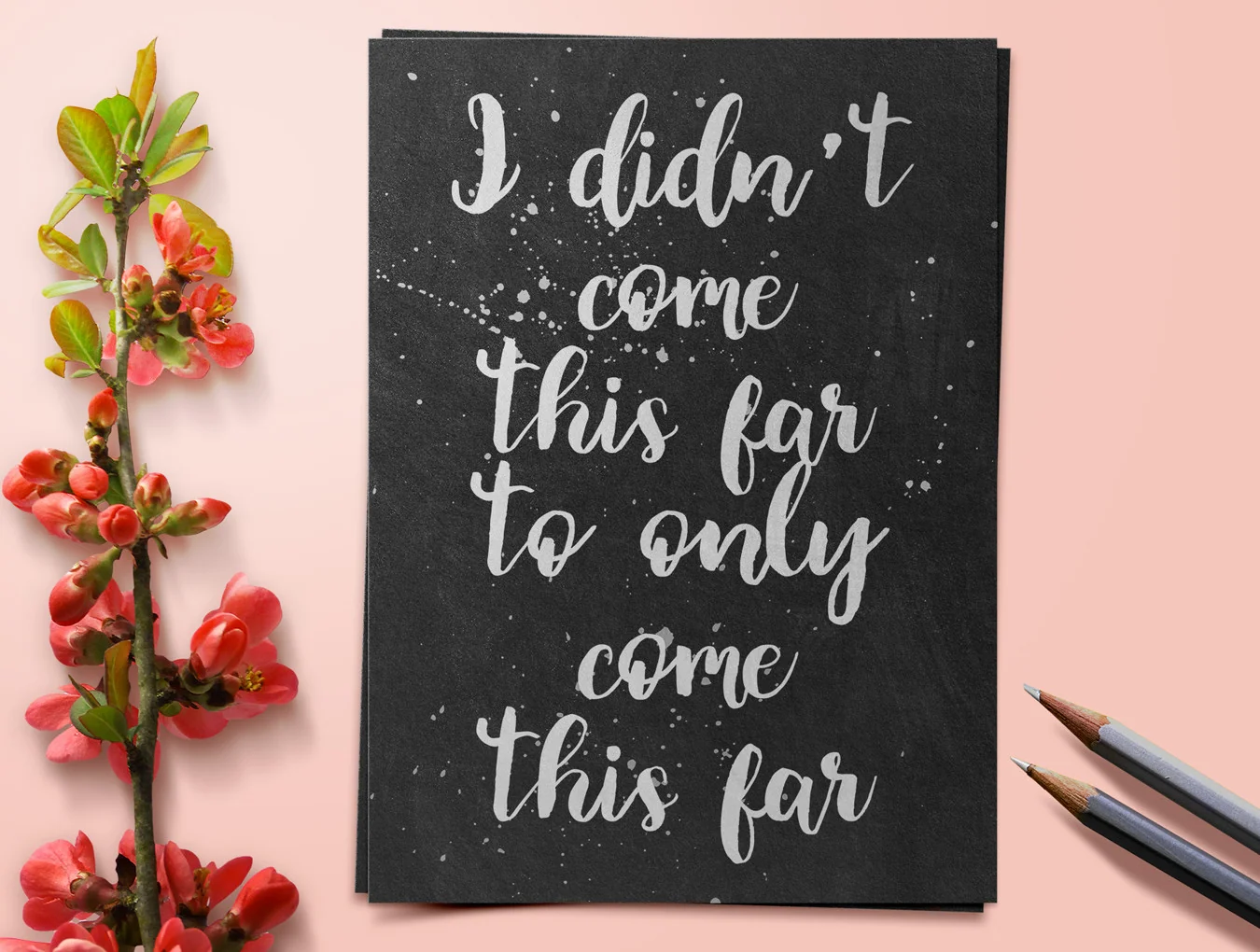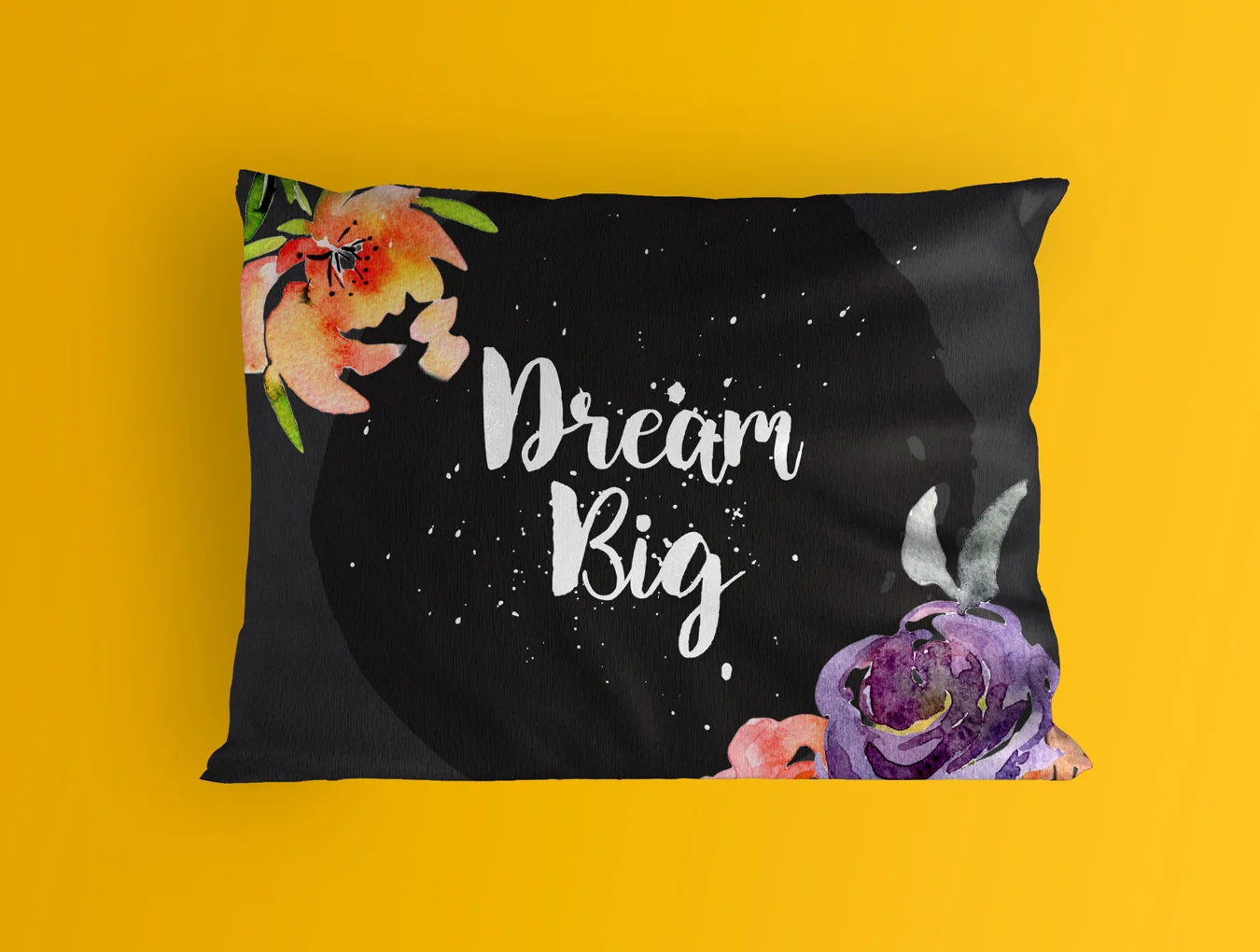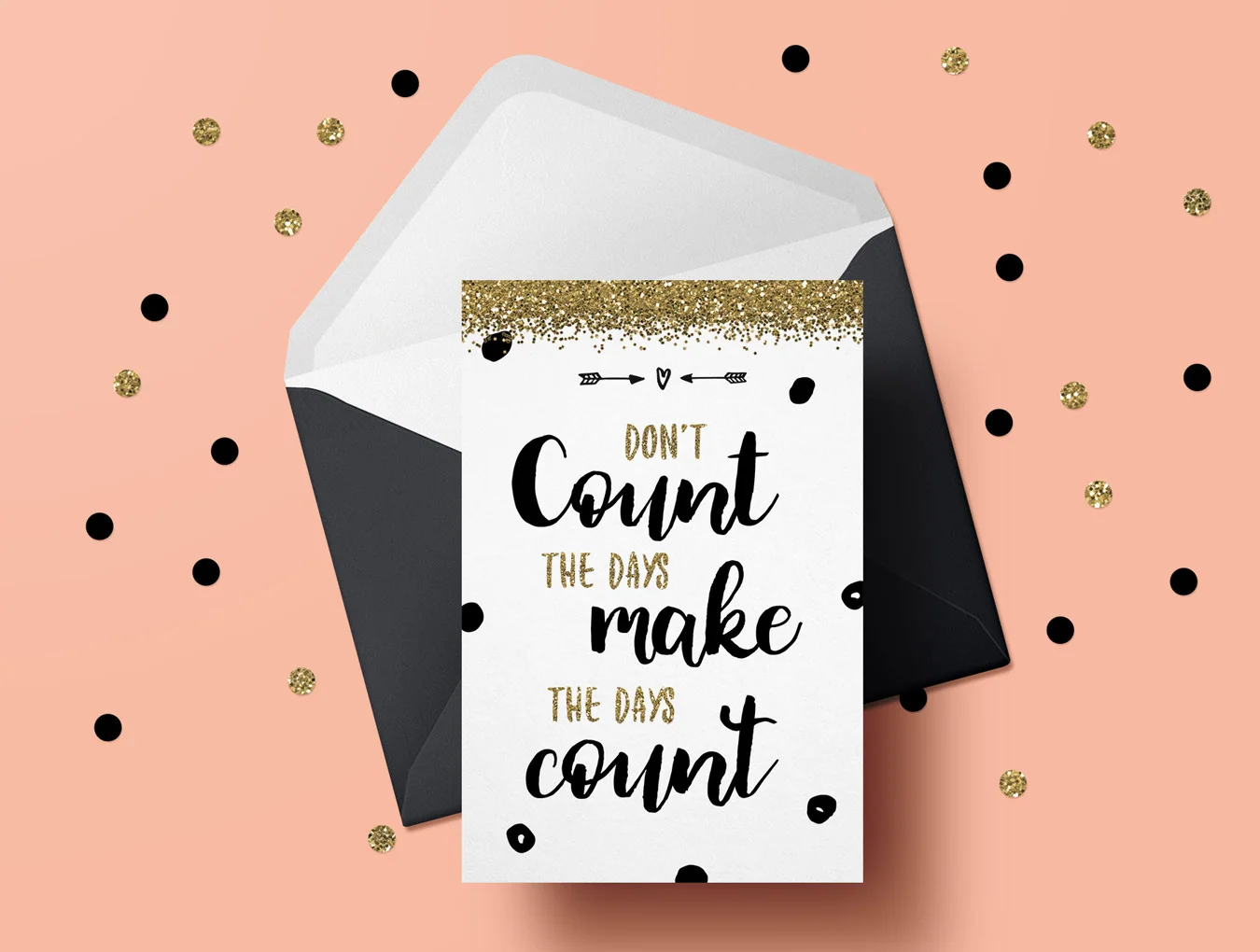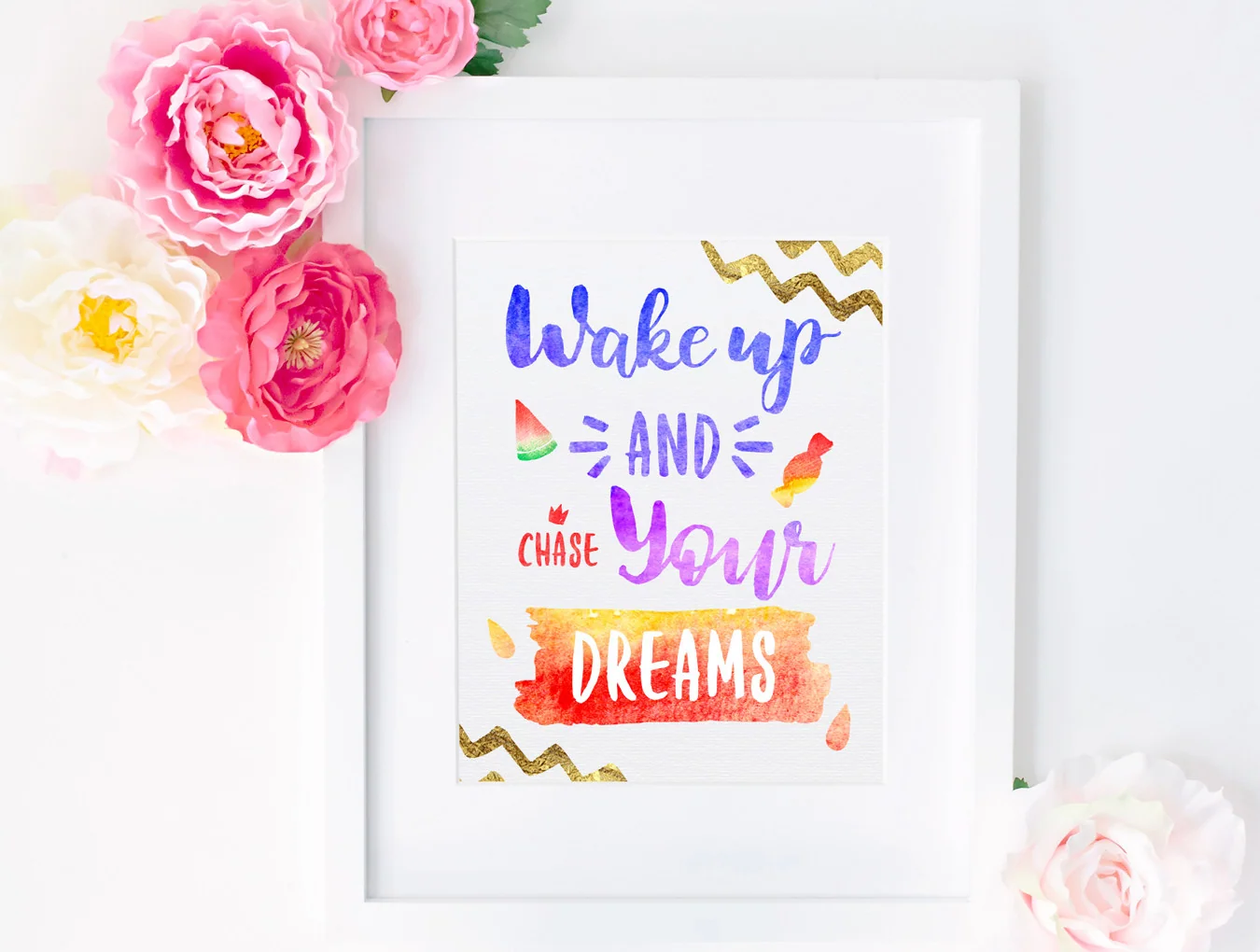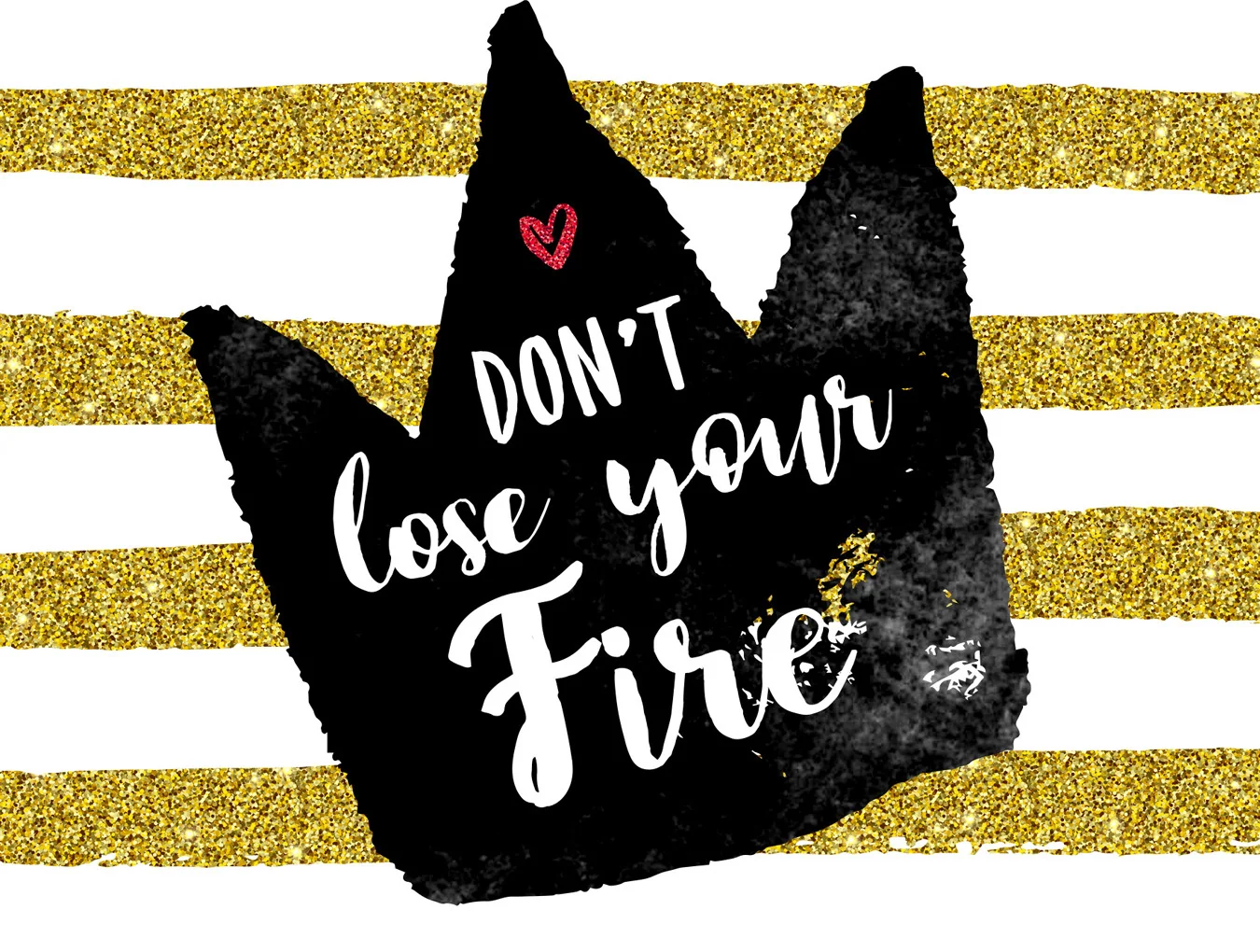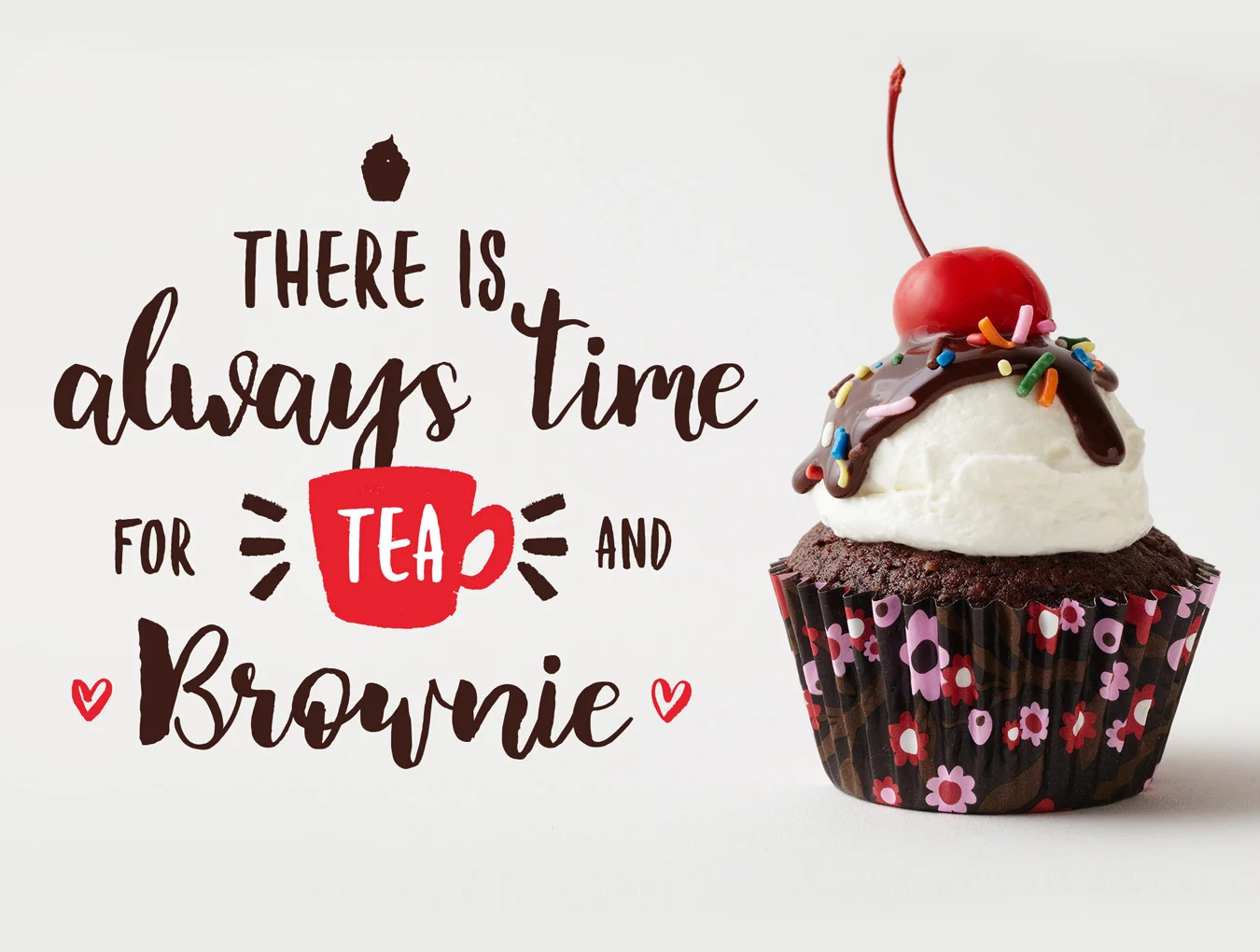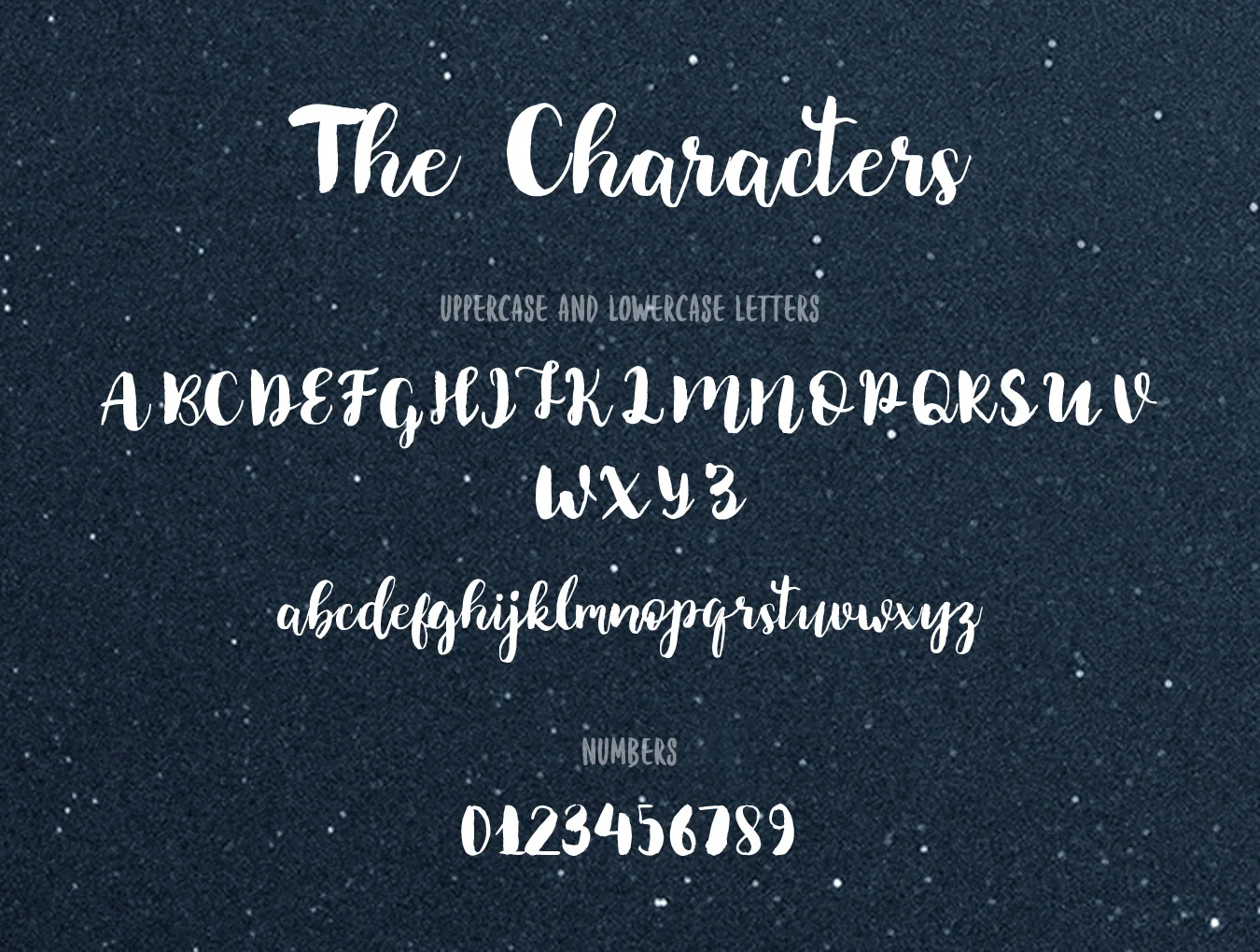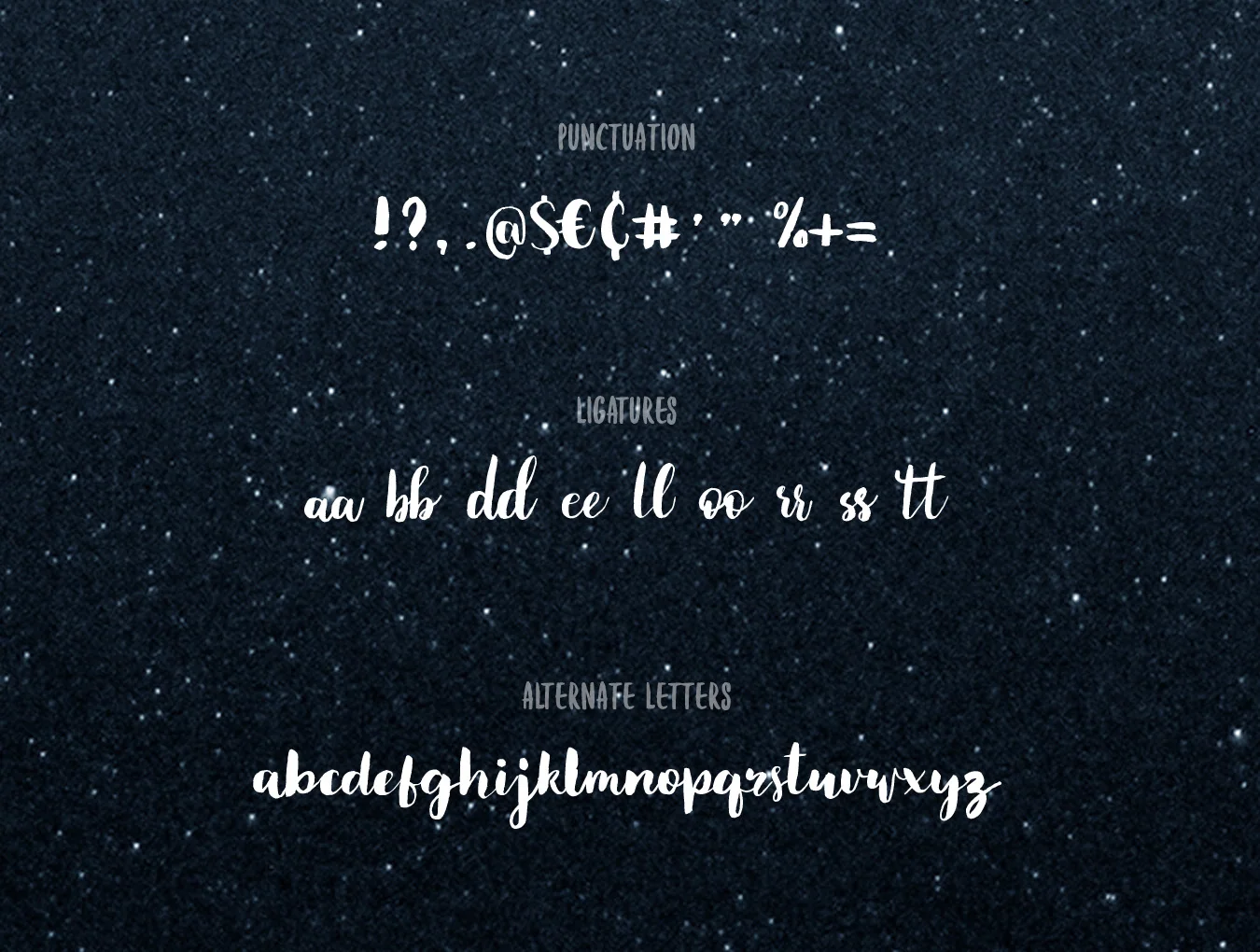
Brownie Brush Font
Beautiful handwritten font, made with love for you
Splatter graphics and icon symbols
Two typeface options: Helper and Regular
Ligature support plus alternate characters
Brownie is a hand-drawn brush typeface supplied in OTF and TTF formats. Ideal for logos, headlines, stationery, apparel, posters, cards, and more, it includes two styles: Brownie Regular and Brownie Helper. Access alternates through Stylistic Alternates, Ligatures, or glyph panels in apps like Photoshop, Illustrator, and Inkscape.